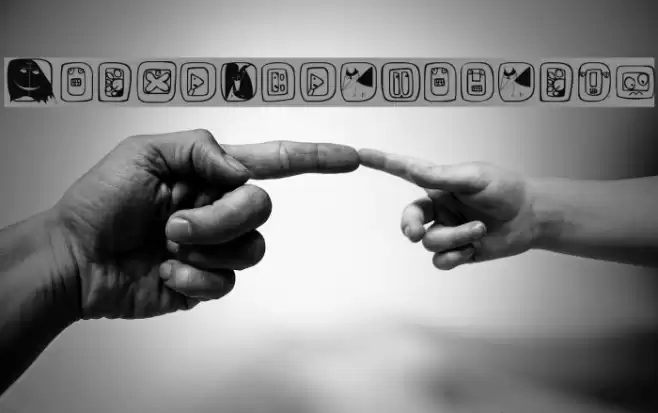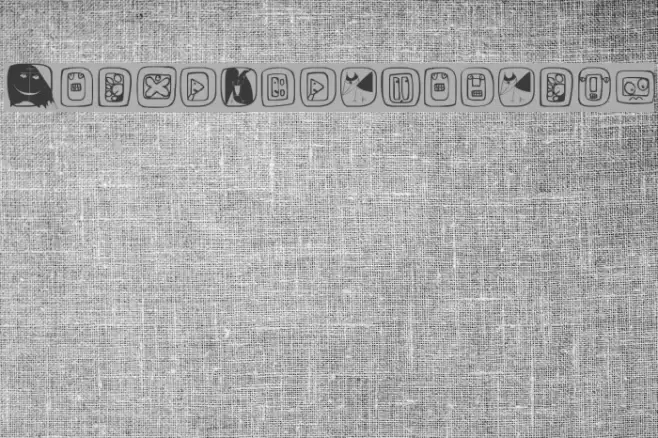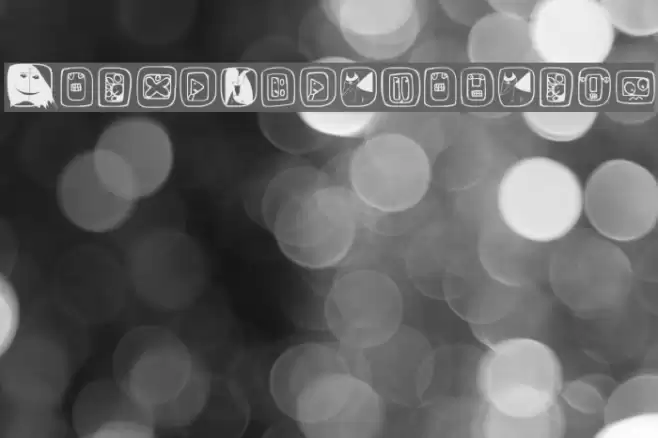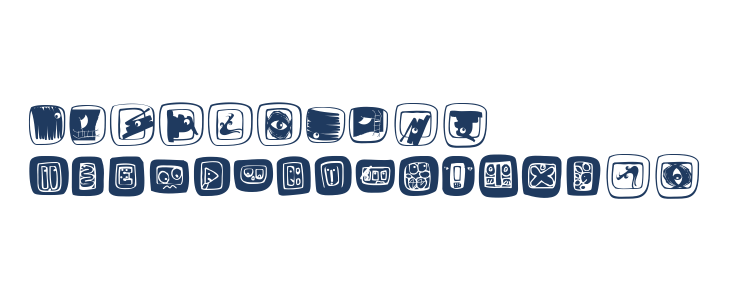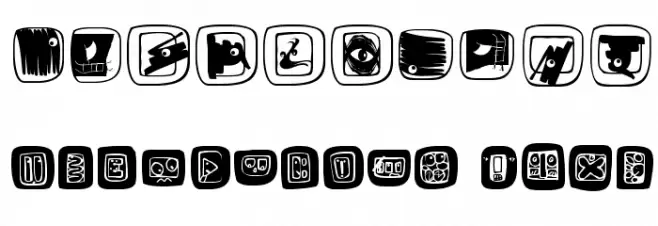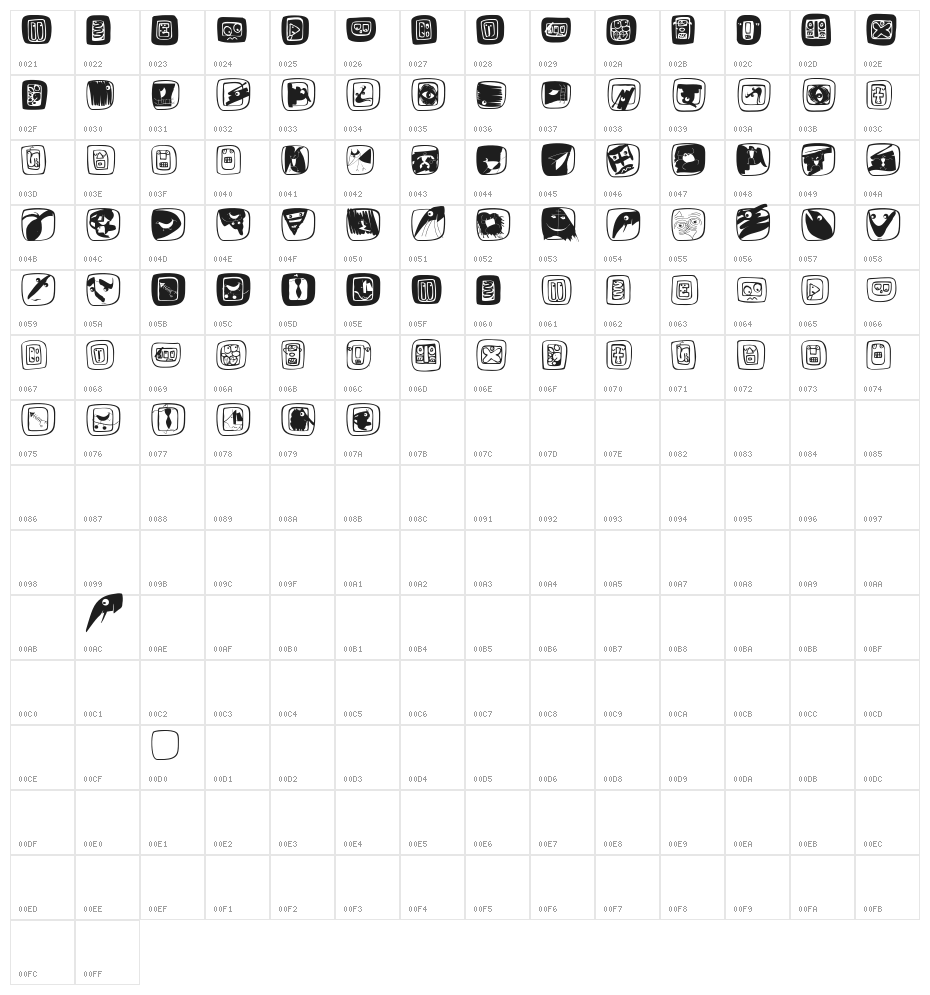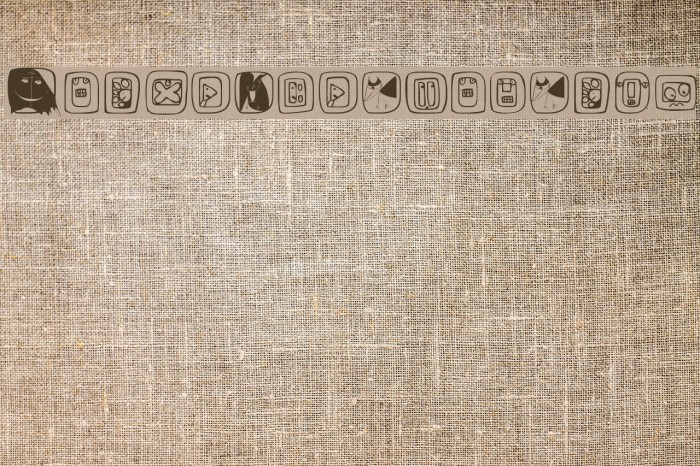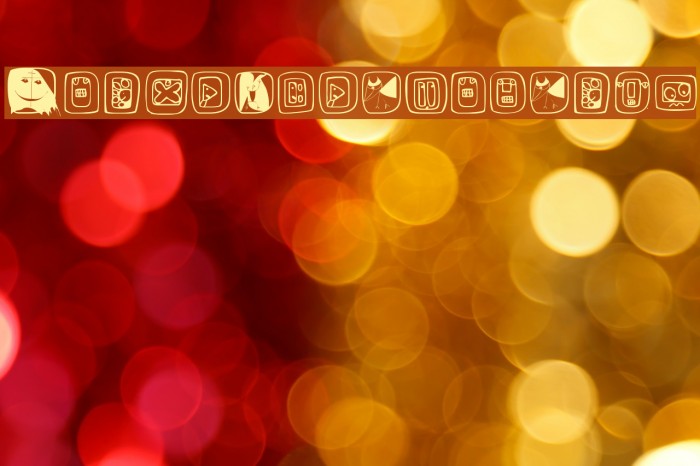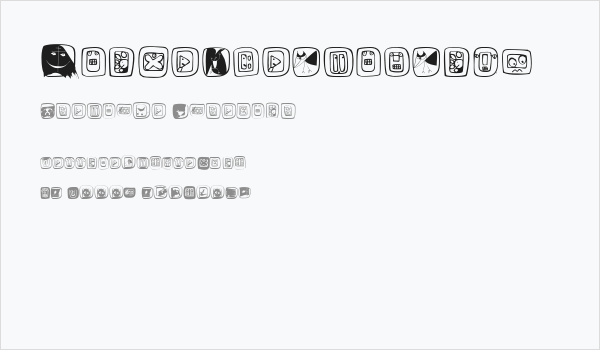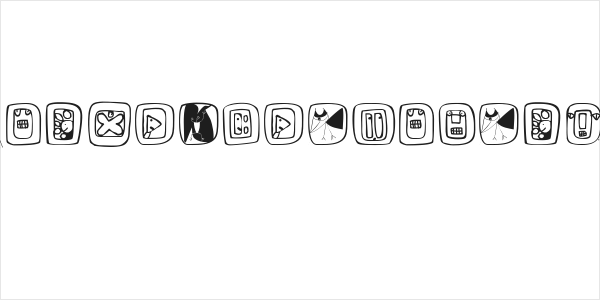
StoneAgeBatsBold Font
StoneAgeBatsBold Description
This font is a unique decorative style that features bold, abstract symbols and shapes reminiscent of ancient carvings or hieroglyphs. Each character is enclosed in a rounded square, creating a uniform appearance across the set. The symbols are highly stylized, with thick strokes and a playful, artistic flair. This font does not follow traditional alphabetic or numeric conventions, instead offering a collection of imaginative icons that evoke a sense of mystery and antiquity. The overall design is bold and eye-catching, making it suitable for creative and unconventional projects.
A bold, decorative font with abstract symbols in rounded squares, inspired by ancient carvings from Uncategorized fonts.
- Proposed Projects: Ideal for creative projects such as themed event posters, artistic book covers, or unique branding materials that require an ancient or mysterious aesthetic.
- Use Case: Logos, Posters, Artistic Designs